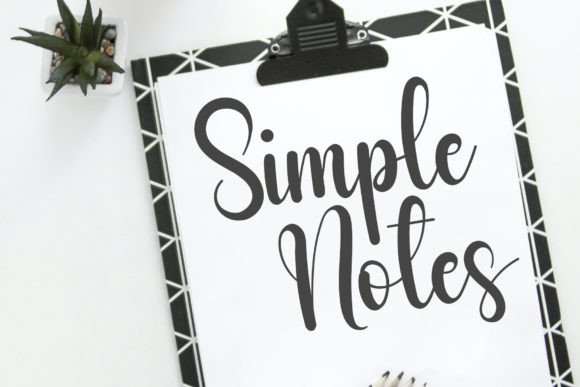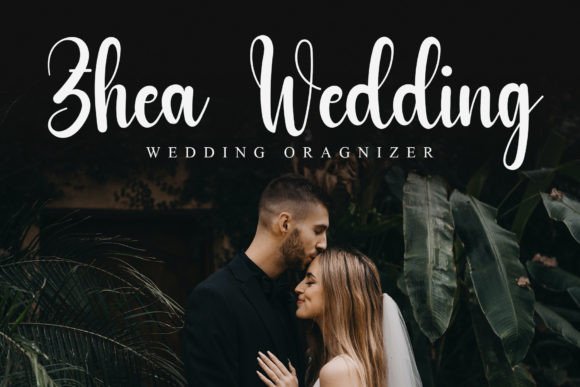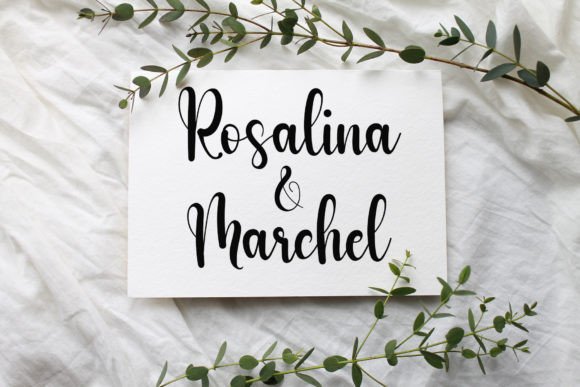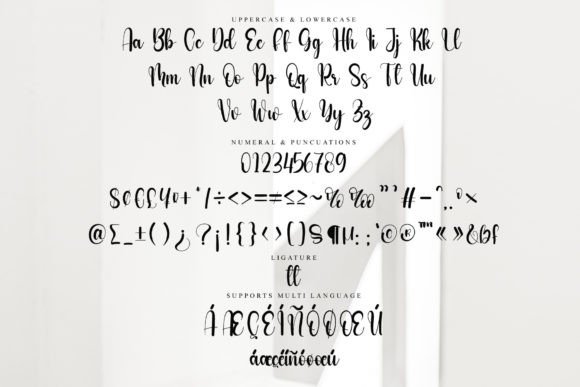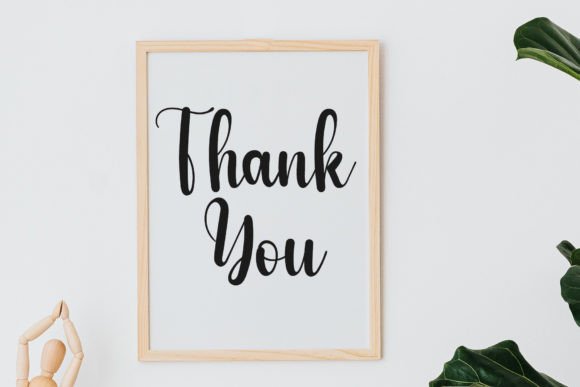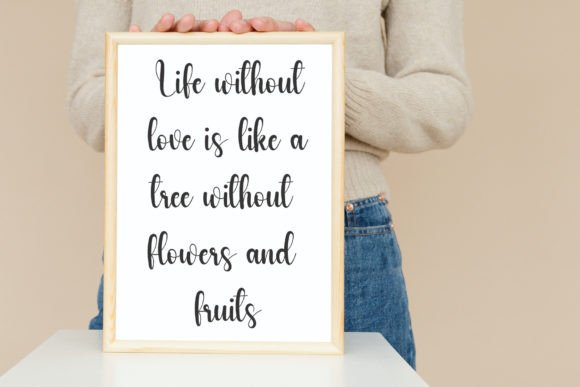
Think Font
Add Style and Elegance with Think Font
Think Font is a stylish and dainty script typeface designed to bring elegance and charm to your creative projects. Its delicate strokes and refined style make it suitable for a wide range of uses. Whether you are designing logos, branding materials, labels, or photography watermarks, Think Font adds a beautiful script touch that enhances your work.
Moreover, its graceful curves and balanced letterforms create a harmonious and polished look, ensuring your designs stand out beautifully.
Versatile Uses for Think Font
Think Font works wonderfully in many different design projects, including:
• Logos and brand identities
• Product labels and packaging
• Photography watermarks and overlays
• Special event invitations and materials
• Posters, flyers, and promotional content
Thanks to its stylish and delicate script style, Think Font adds sophistication and personality to your creative work.
It also features well-kerned letters and clear spacing, ensuring your text remains readable and visually appealing across various sizes and formats.
Why Designers Choose ThinkFont
Designers and creatives appreciate ThinkFont for its blend of style and delicacy. It adds a personal and elegant touch that enhances any project. Whether you’re a professional or a hobbyist, ThinkFont helps you produce beautiful and memorable typography.
Use ThinkFont to bring grace and sophistication to your next creative design.